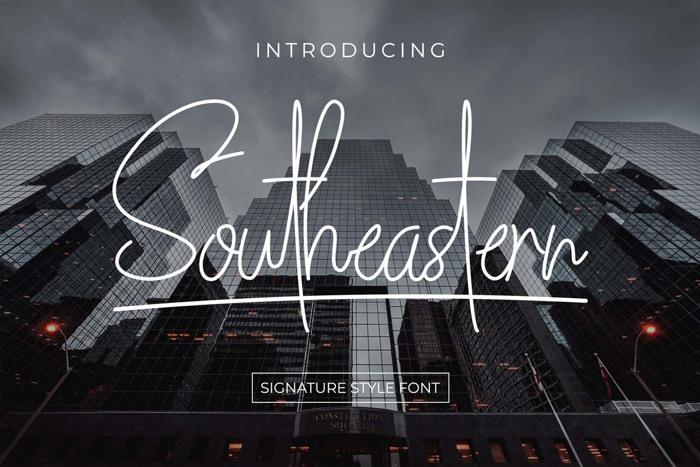
Southeastern Font
Southeastern is the prime released font, it is handwritten signature style font which is good for using branding, invitation card, business card, product packaging, stationery, social media post, watermark, or anything that needs handwriting special thing.